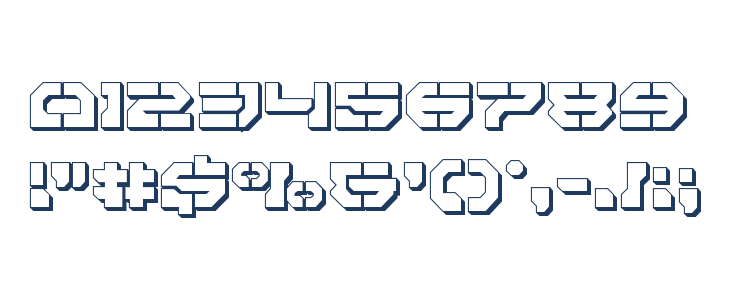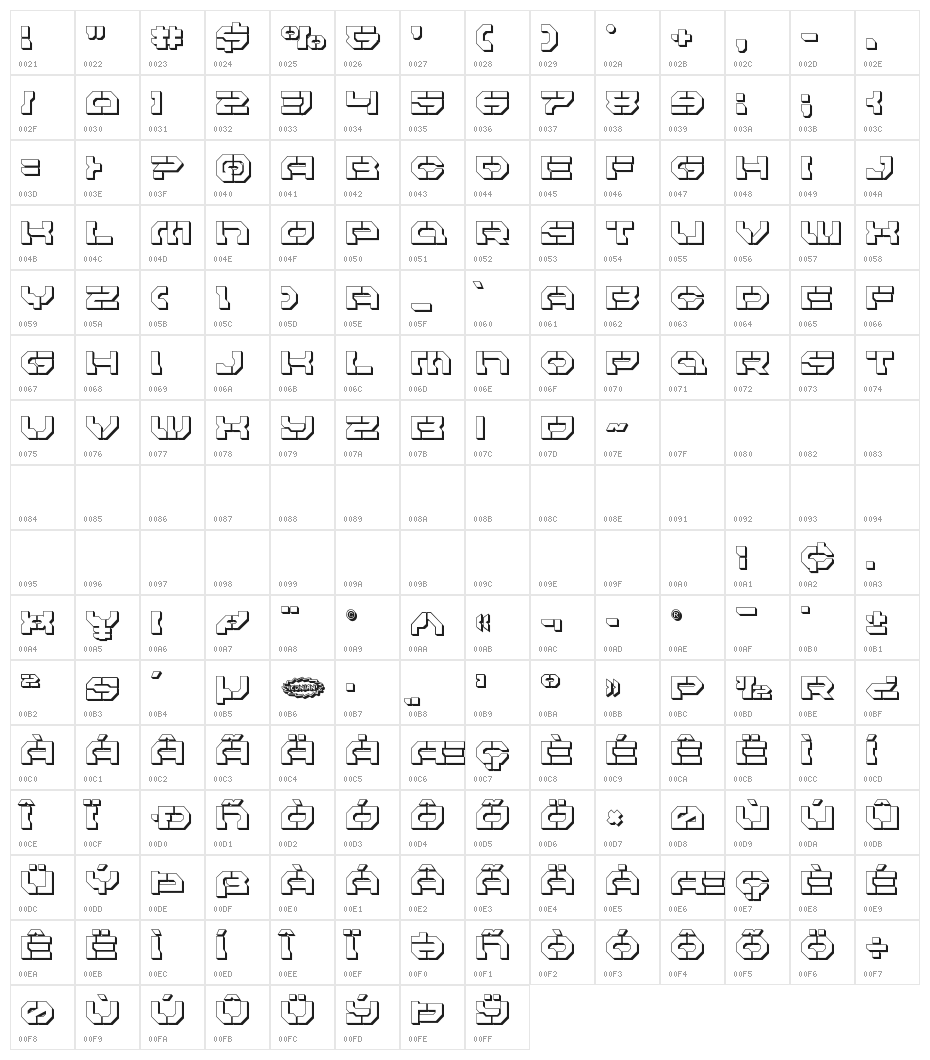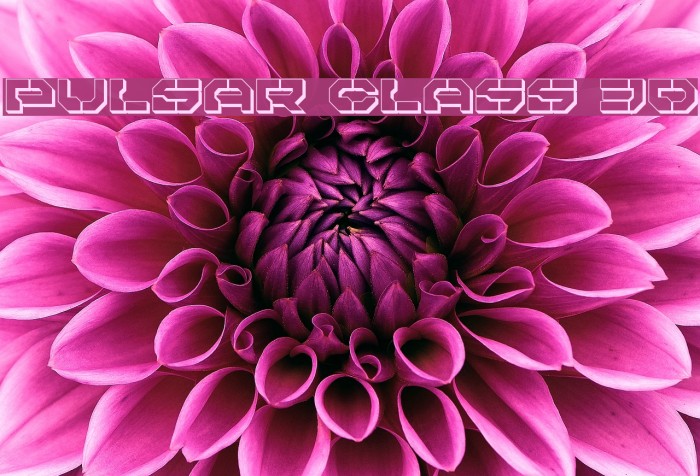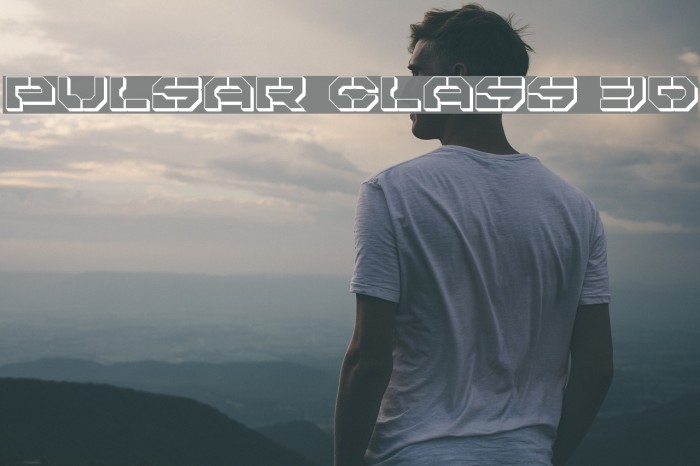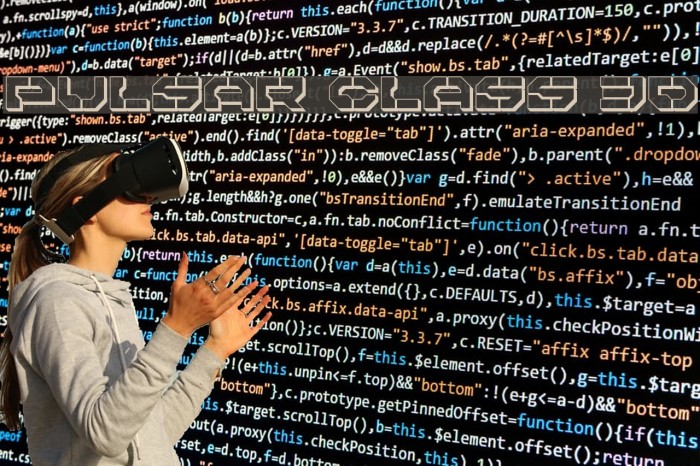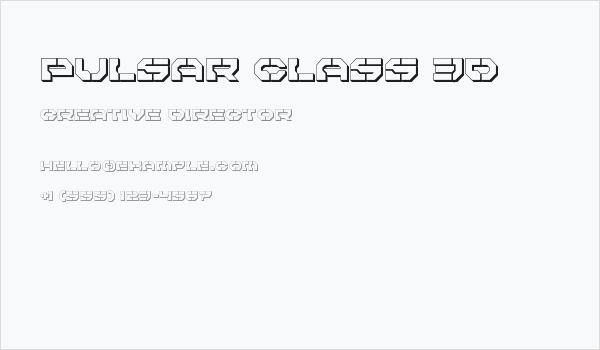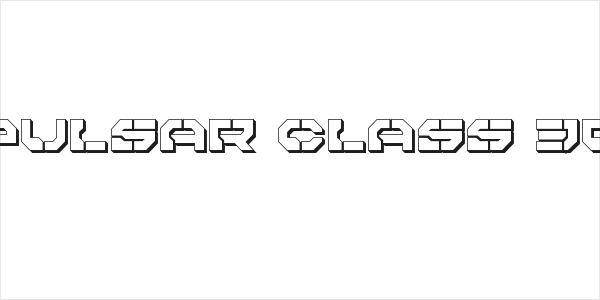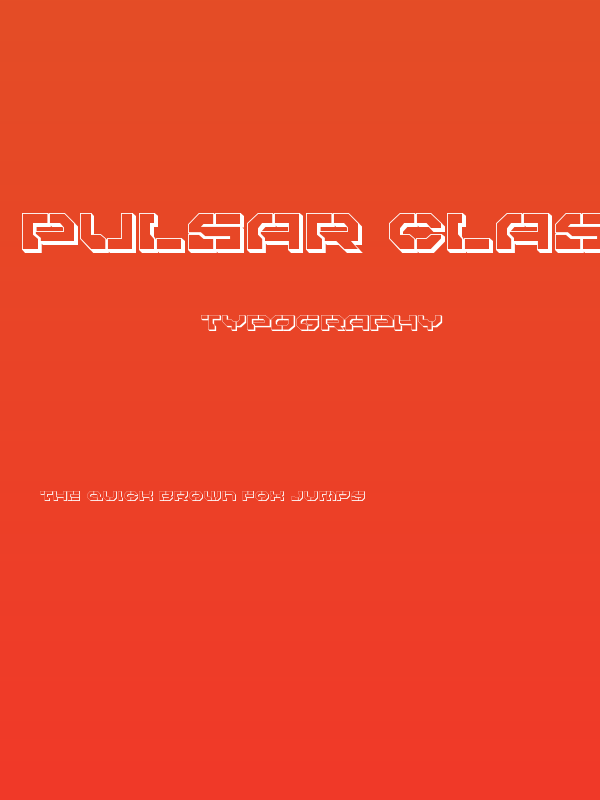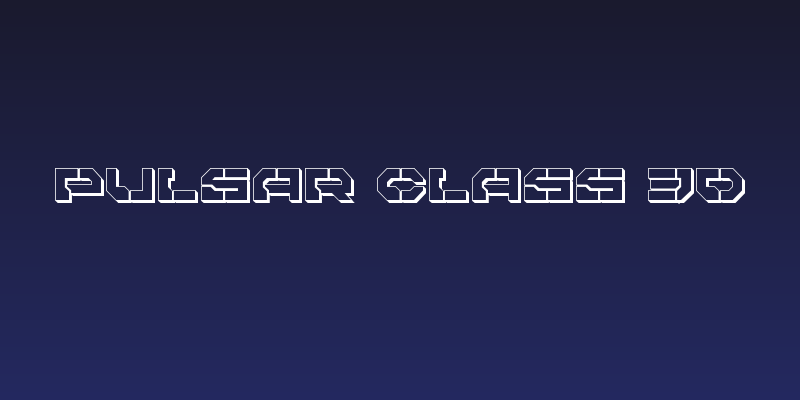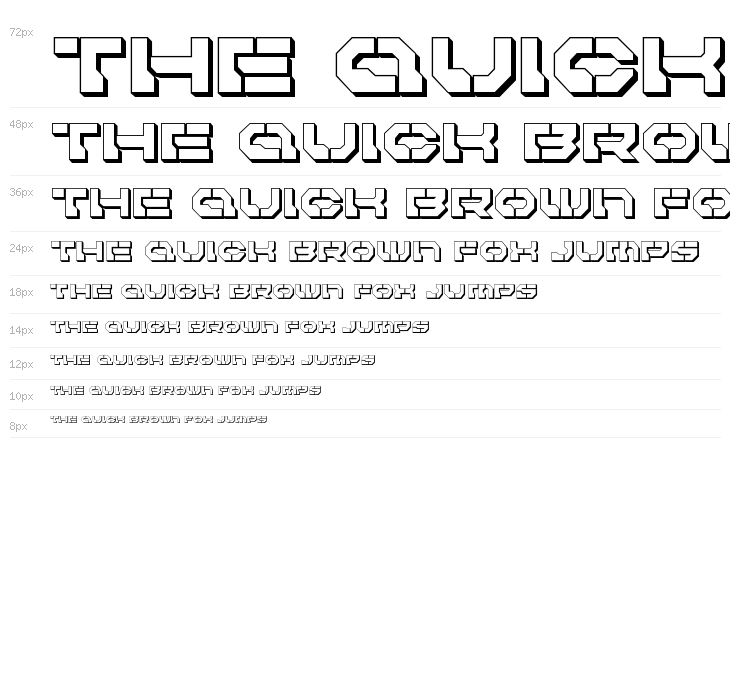
Pulsar Class 3D Font
Pulsar Class 3D Description
This font features a bold, geometric design with a three-dimensional effect, characterized by sharp angles and a futuristic aesthetic. Each character is outlined, creating a sense of depth and structure. The uppercase and lowercase letters maintain a consistent style, with angular cuts and a blocky appearance. Numbers and special characters follow the same design principles, ensuring uniformity across the typeface. The font's unique style makes it stand out, suitable for projects that require a modern and edgy look.
| Proposed Projects | Ideal for sci-fi themed posters, video game titles, tech branding, and modern art installations. |